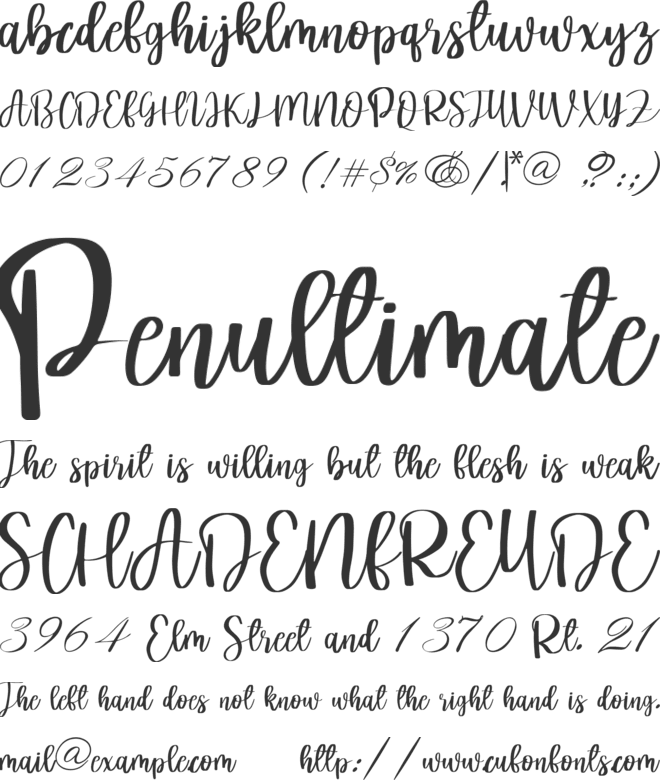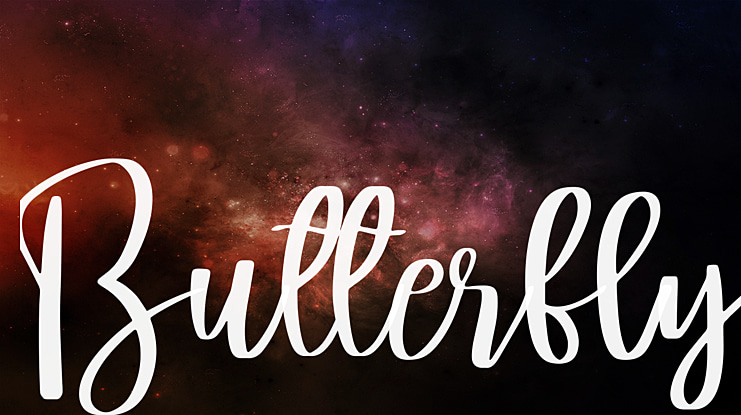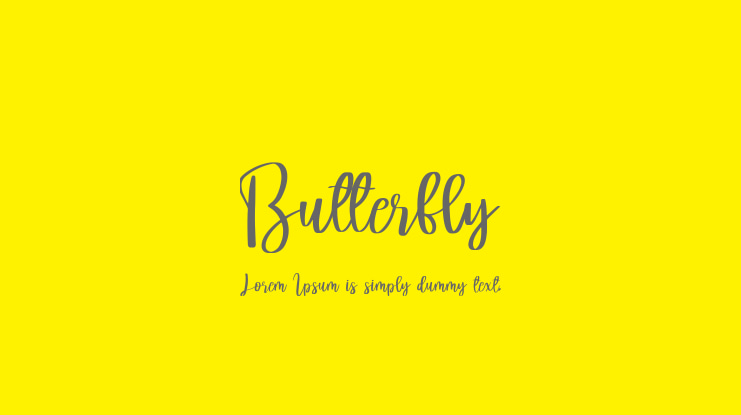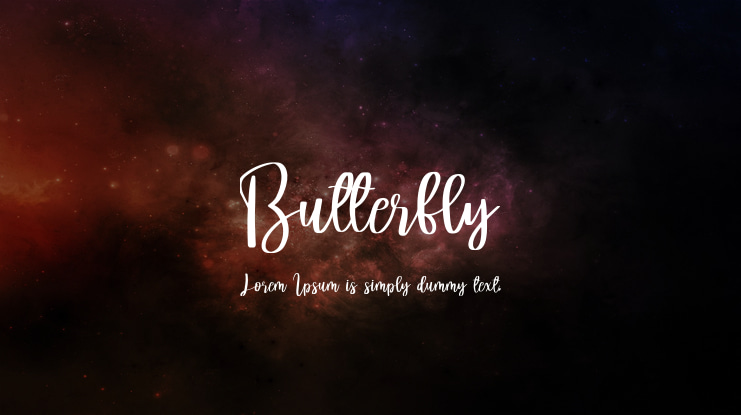
Butterfly Font
Butterfly is a sweet and delicate handwritten font. Dainty and joyful, this font will be ideal for writing wedding invitations, cards or any other design that may need a romantic, personalized touch!